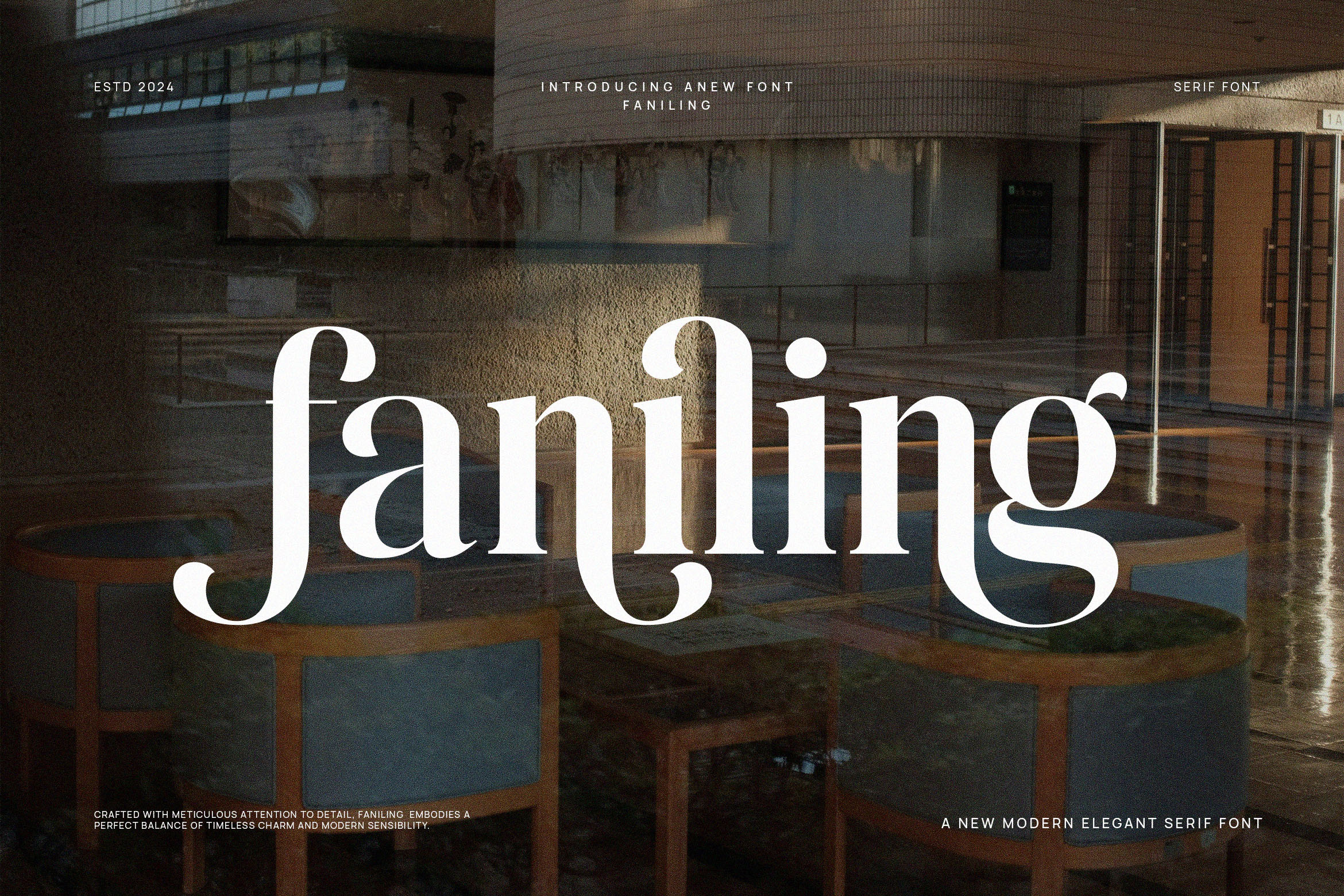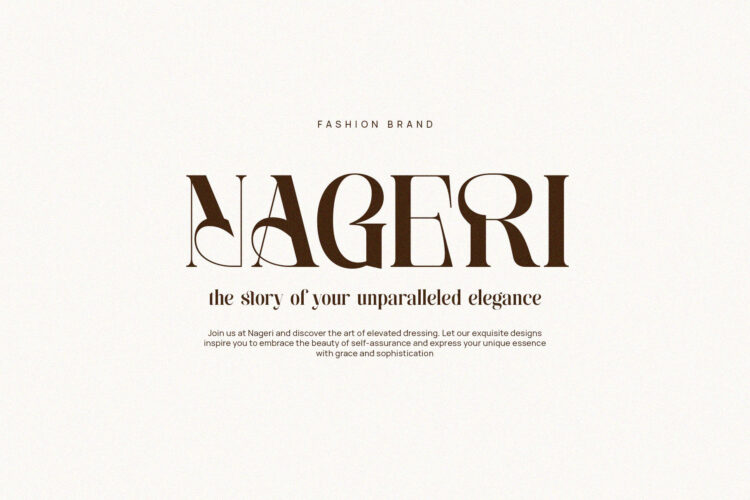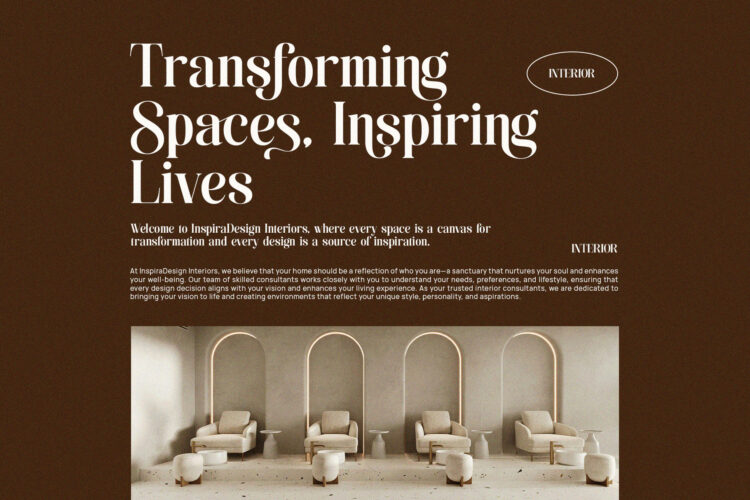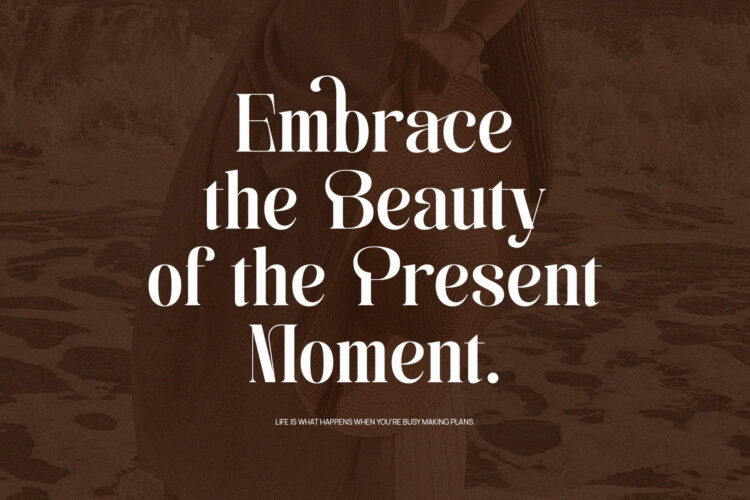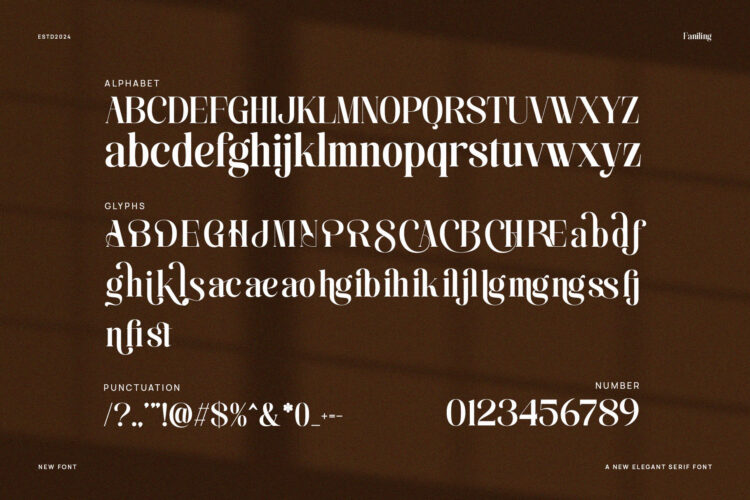
Introducing our new Faniling, modern serif font with elegant style this is perfect for branding, logos, invitation, magazines, product packaging and more.
Faniling – Elegant Serif Font